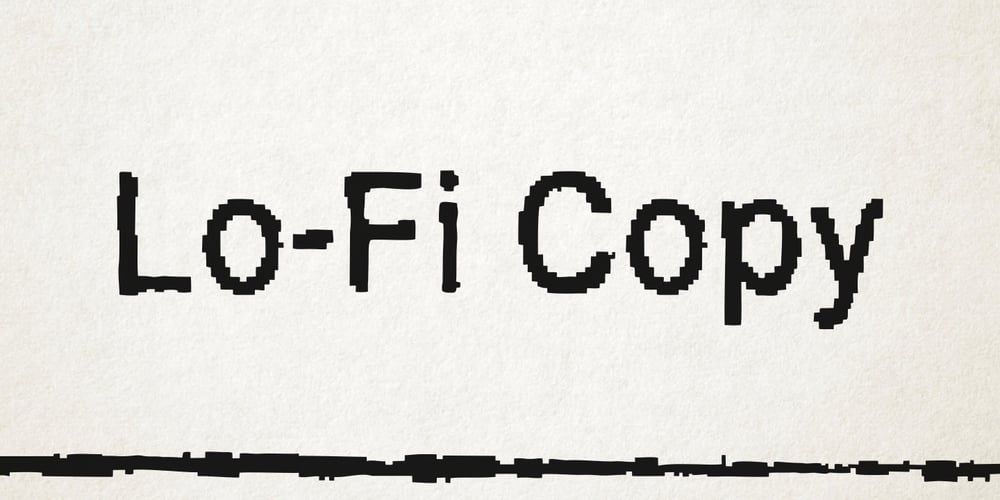
Lo Fi Copy Font Family was designed by Lukyan Turetskyy and published by 2D Typo. Lo Fi Copy contains 1 styles and family package options. Lo-Fi Copy is a good way to add an analog look to your design. Brutal pixels have chaotic errors, like a damaged signal.